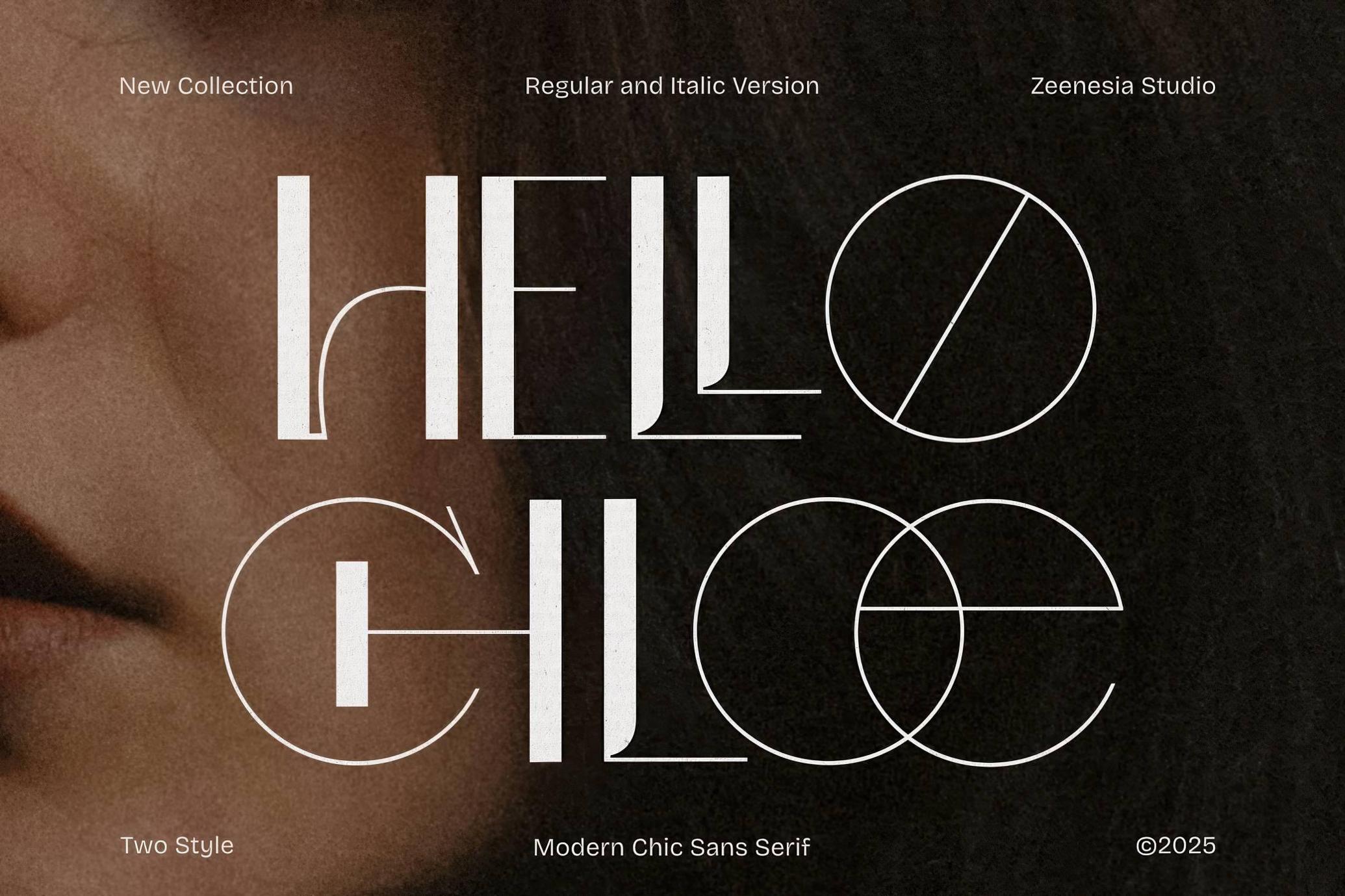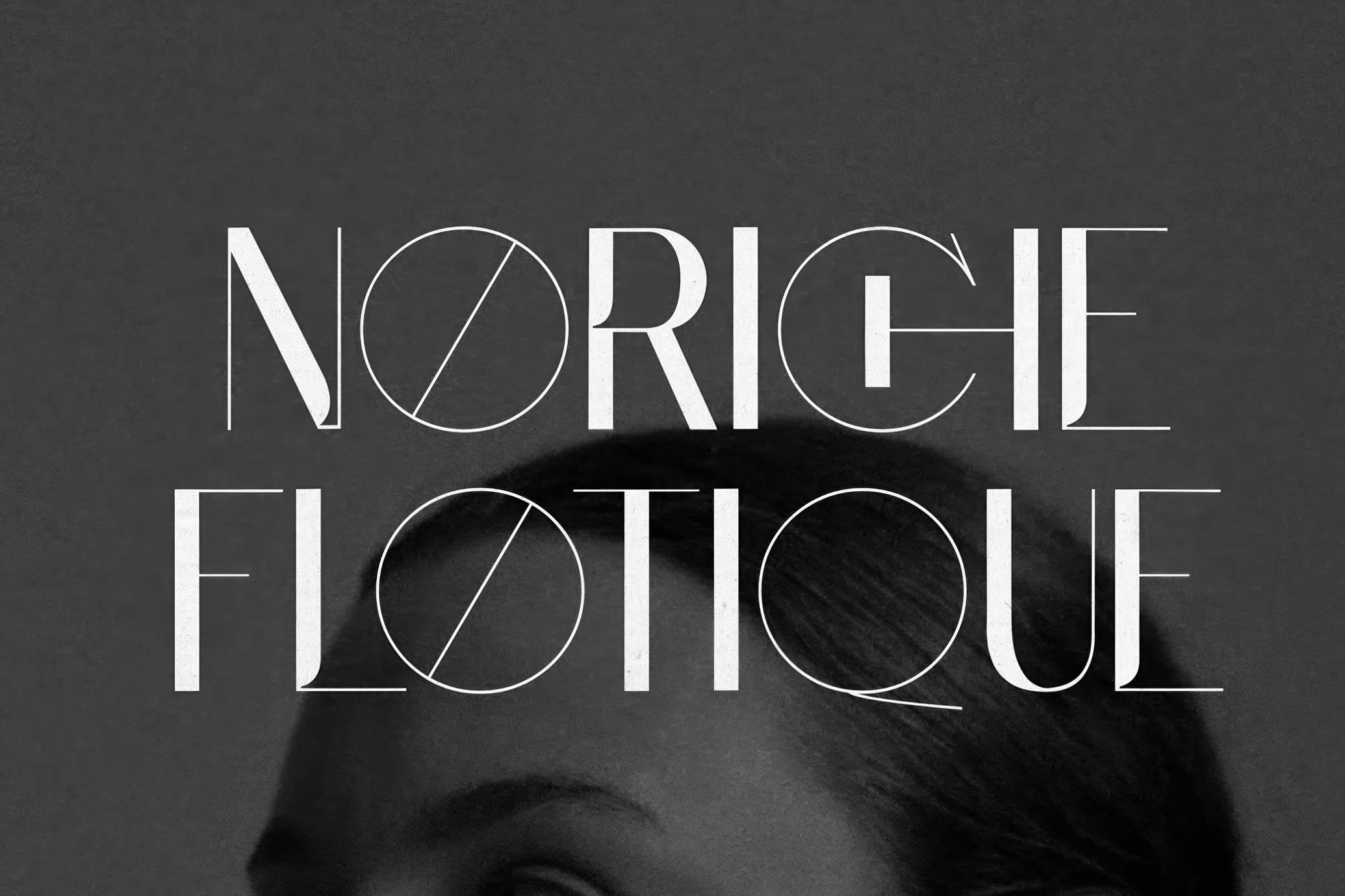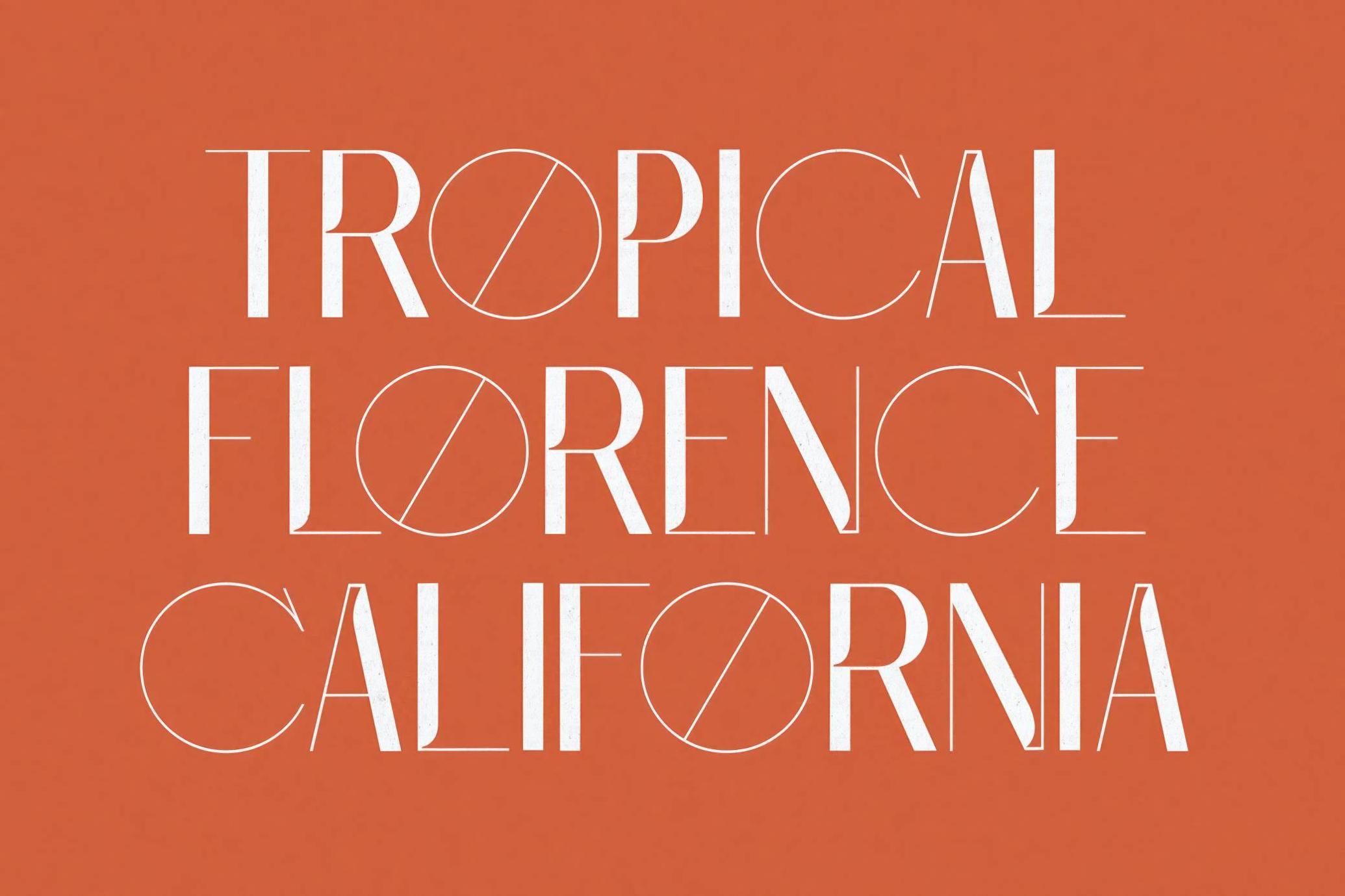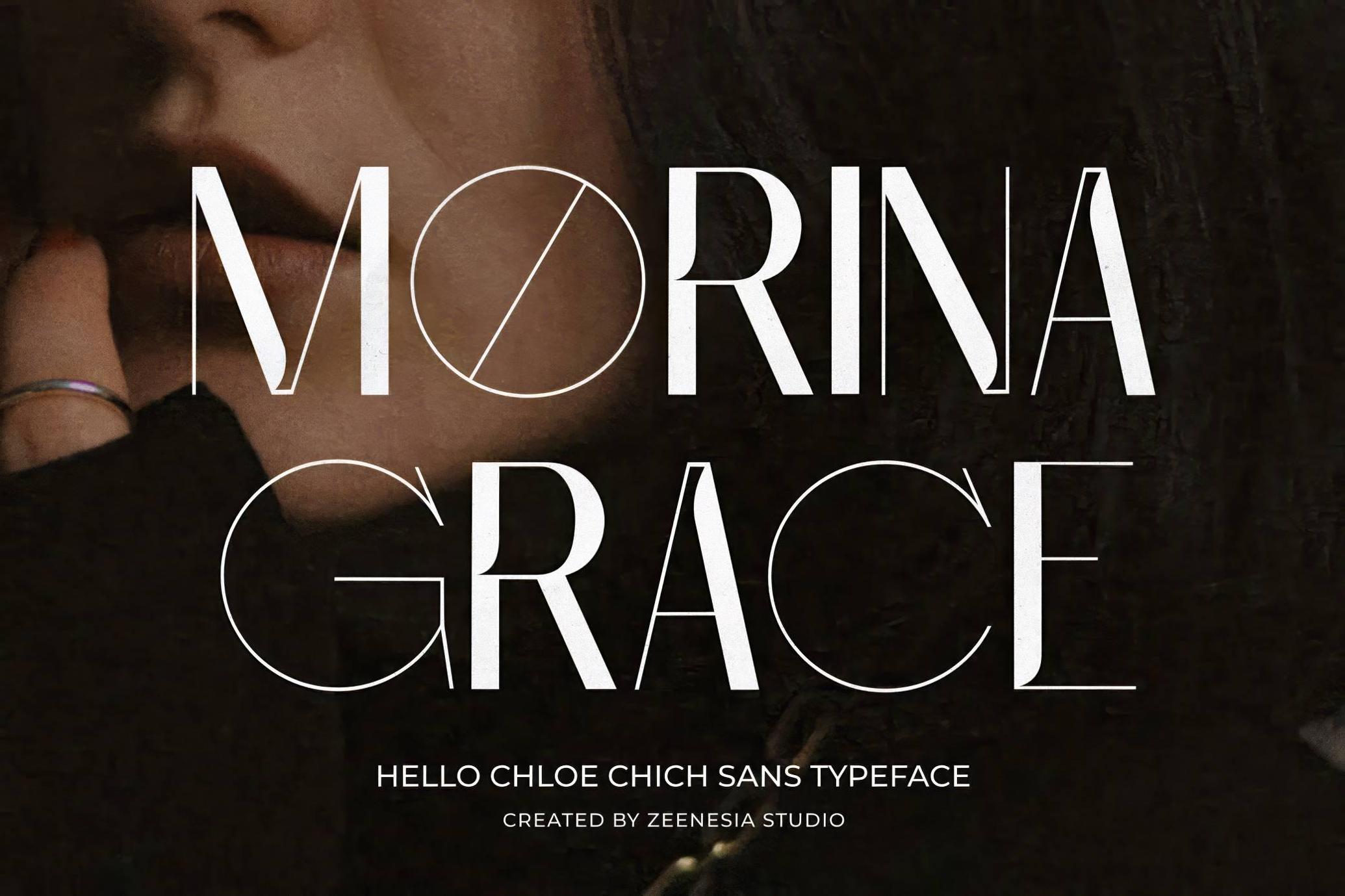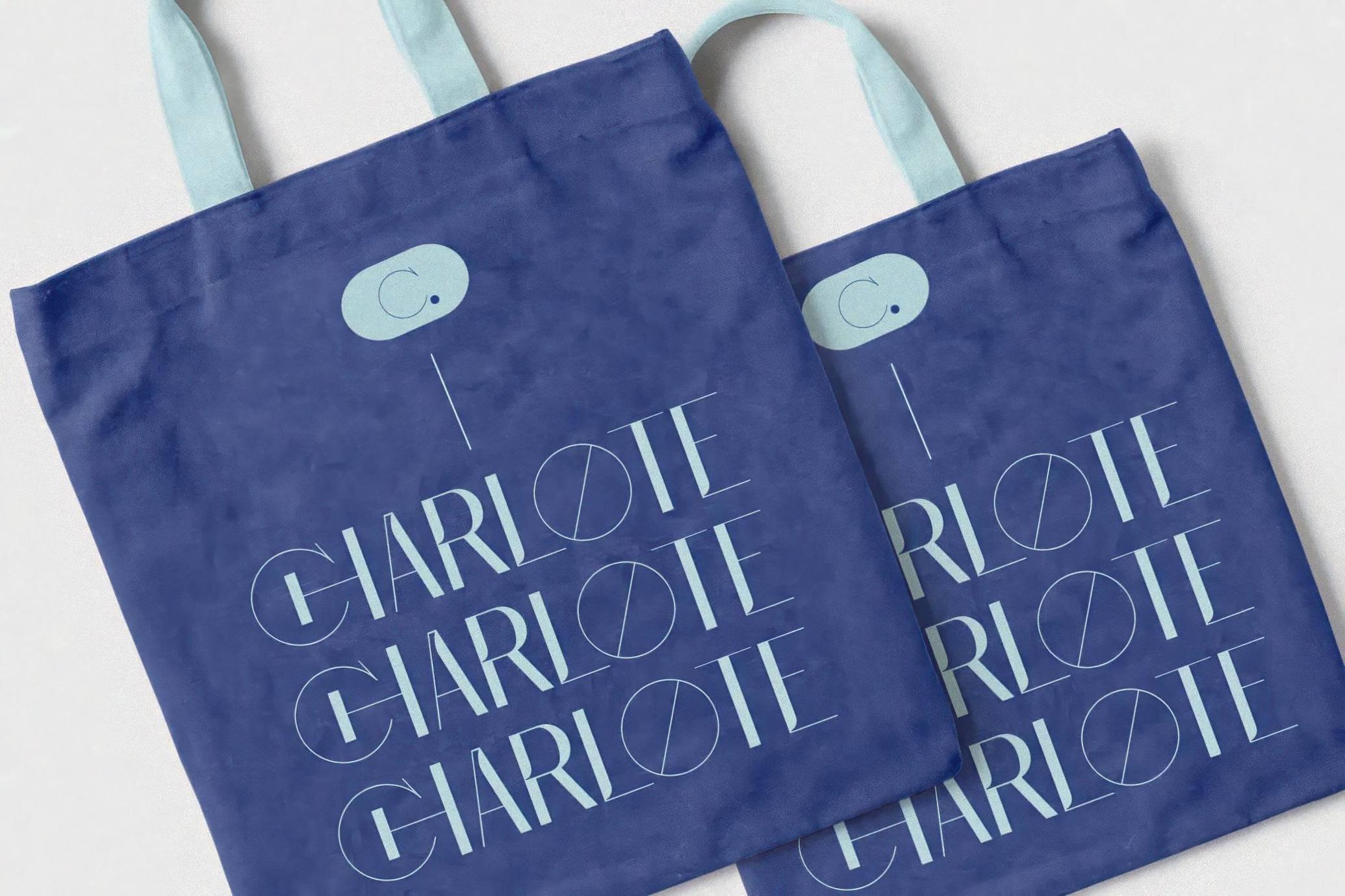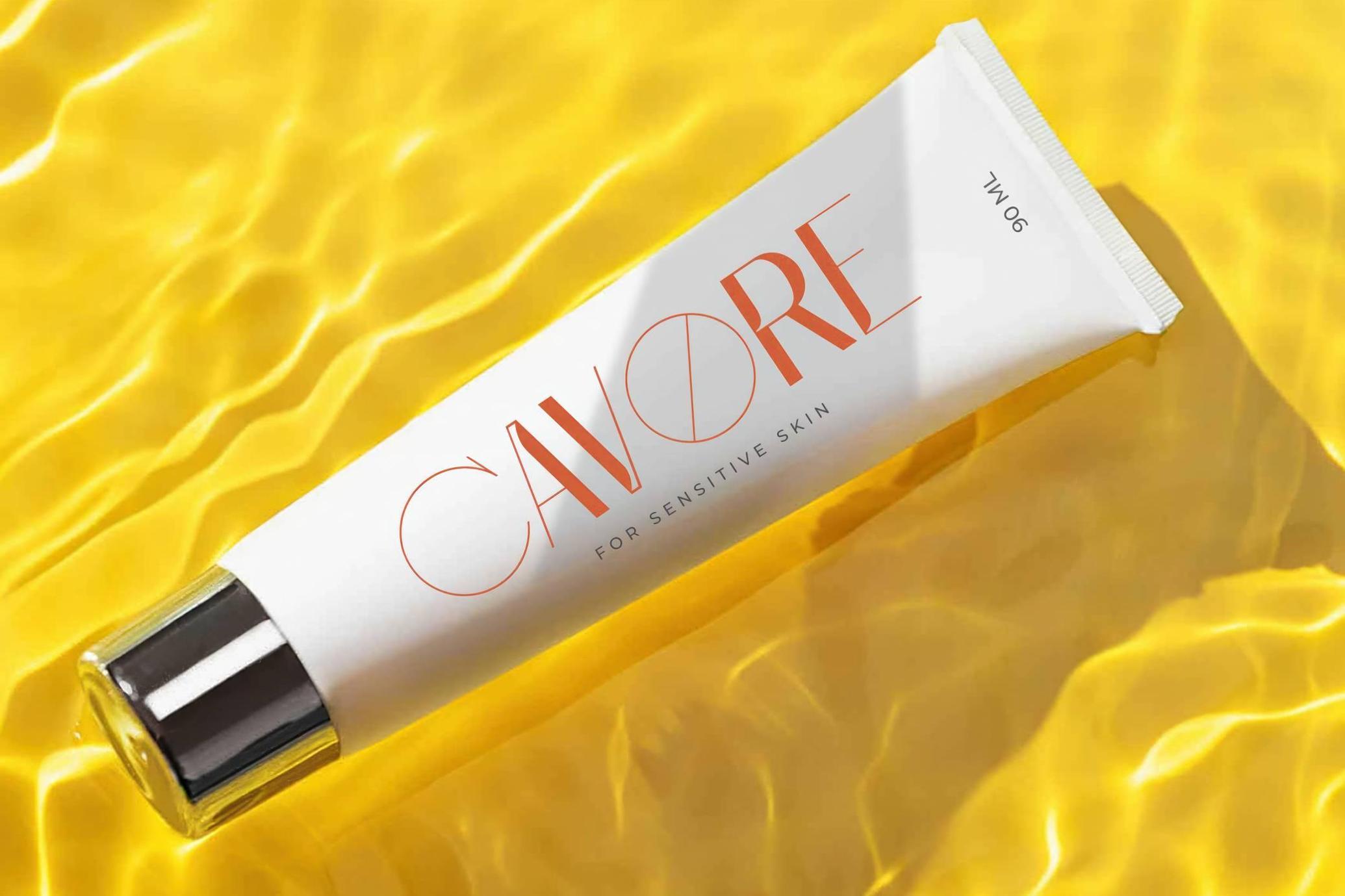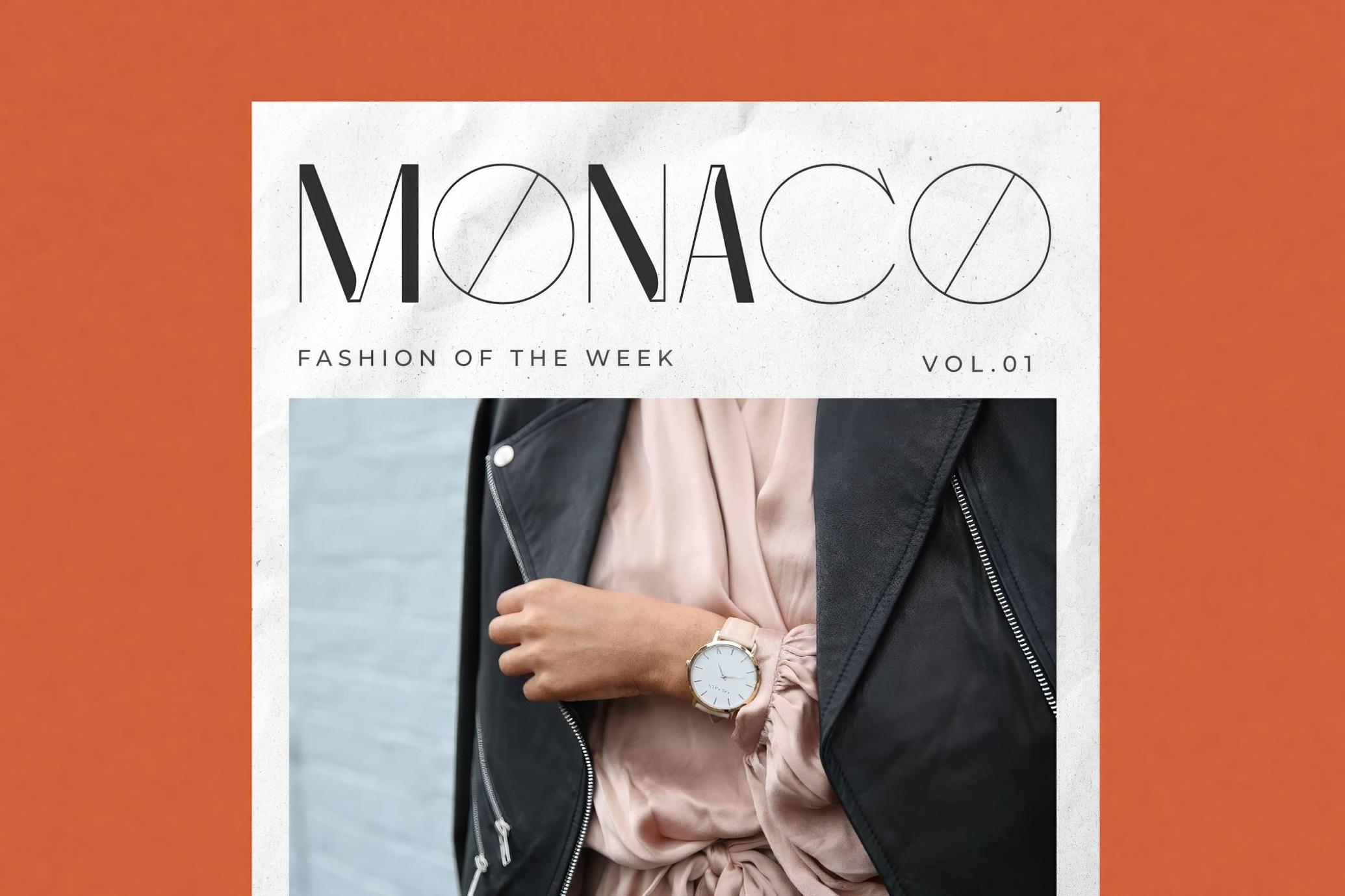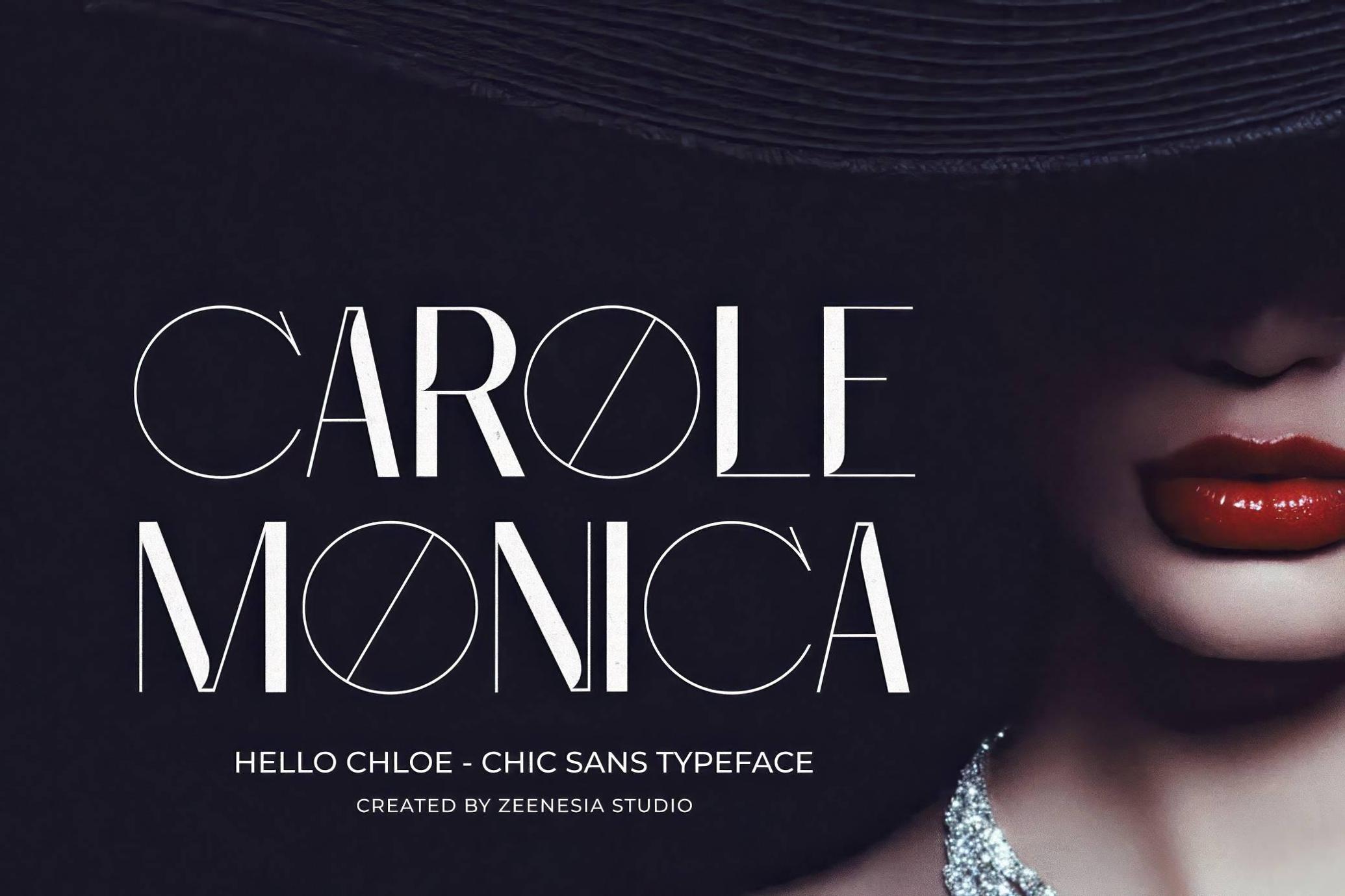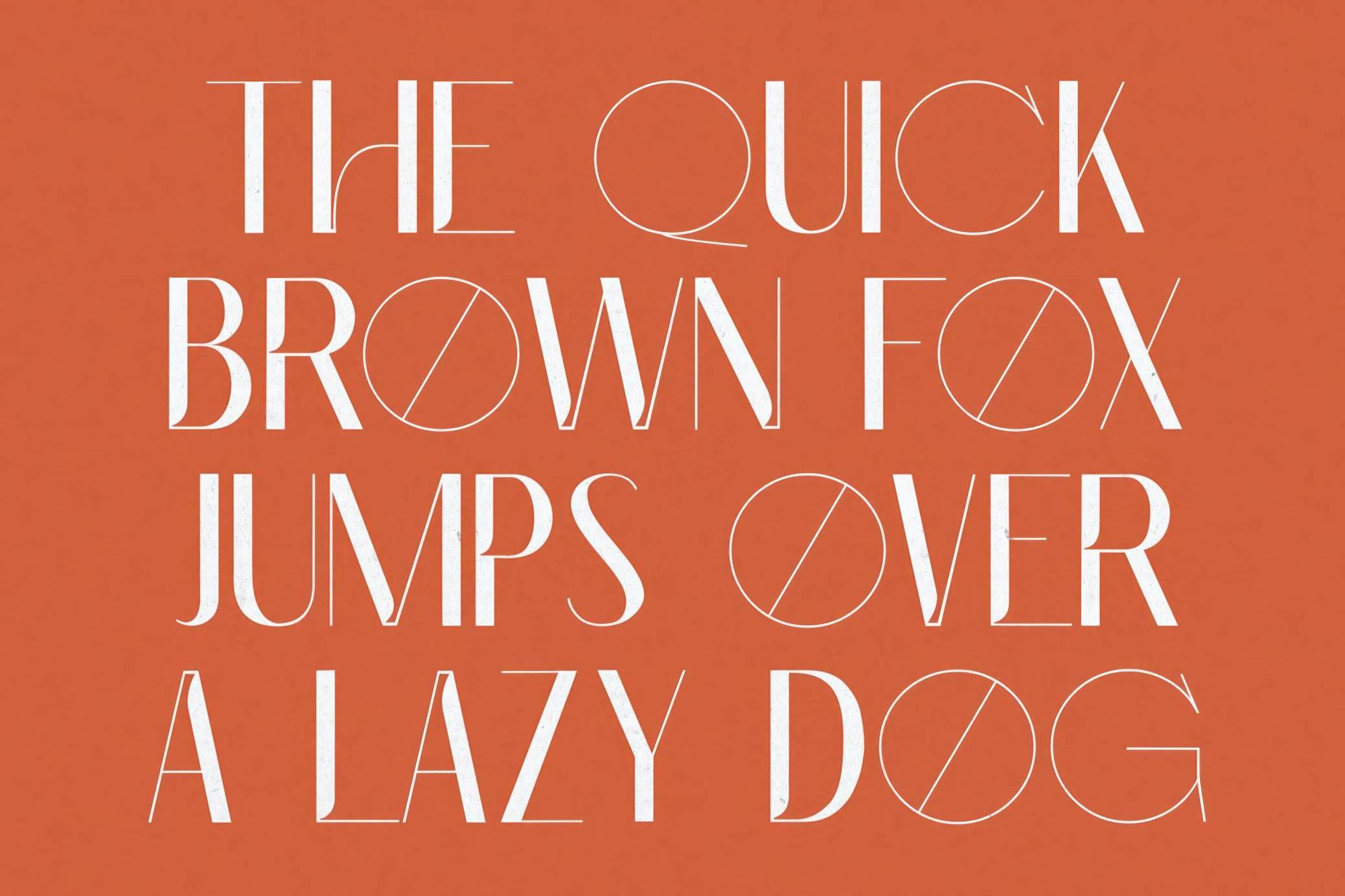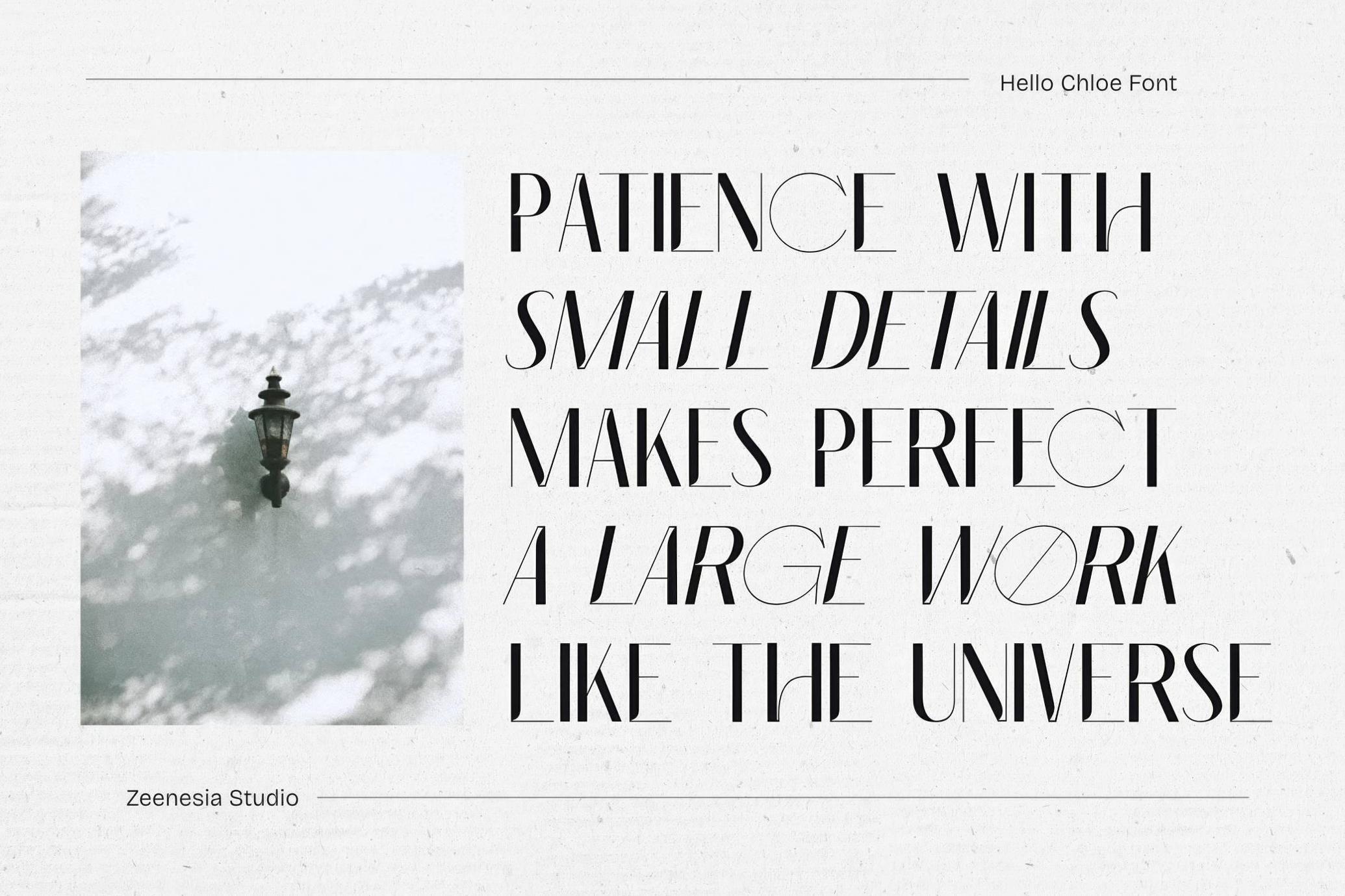
Hello Chloe Sans Serif
Hello Chloe dances between geometric minimalism and editorial flair. It's built around ultra-thin lines, high contrast strokes, and dramatic diagonals — so the negative space is like a design element in its own right. Discretionary ligatures stitch together unexpected combinations — the kind suited for a luxury packaging concept or an indie fashion label with art school roots.
The package includes two styles: Hello Chloe Regular and Hello Chloe Italic. They go with a standard glyph set, multilingual support, and webfont versions. Best choice for fashion branding, magazine headlines, minimalist posters, cosmetic packaging, boutique logos, album artwork, portfolio titles, runway invites, or stylized website headers.